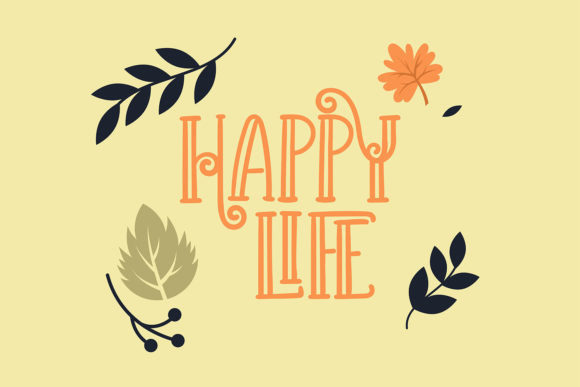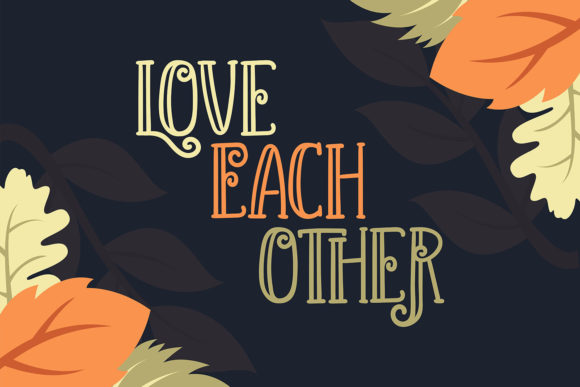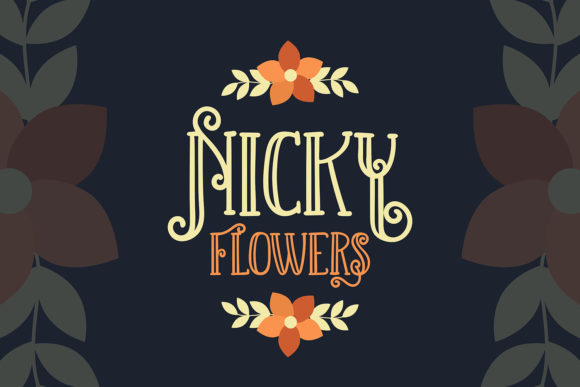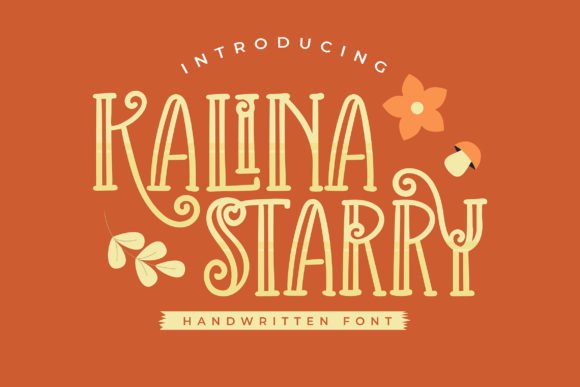
Introduction to Kalina Starry Font
Kalina Starry is a decorative font.
Whether you’re looking for fonts for Instagram or calligraphy scripts for DIY projects, Kalina Starry will turn any creative idea into a true piece of art .
Key Features of Kalina Starry Font
Why Choose Kalina Starry Font?
Kalina Starry Font offers exceptional quality and versatility, making it a valuable addition to your design toolkit. Whether you’re creating for personal projects or commercial use, Kalina Starry Font delivers professional results.